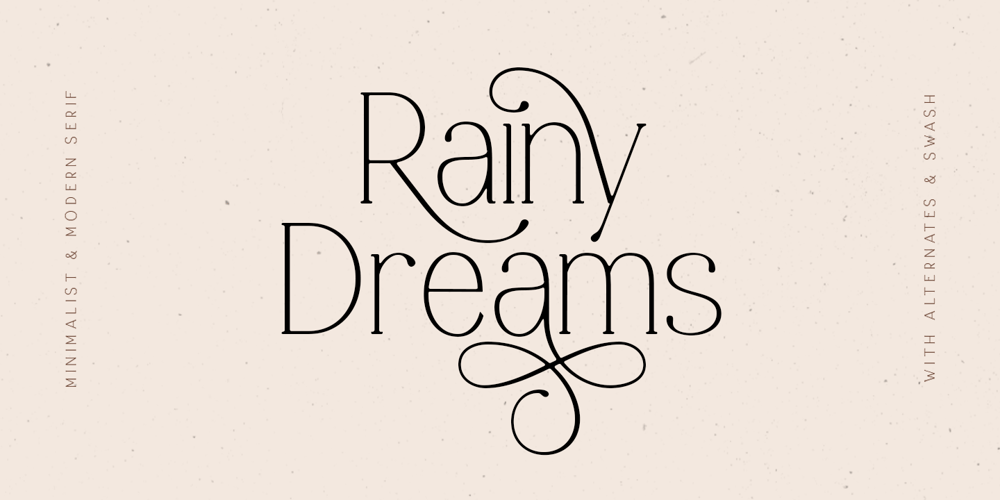
Rainy Dreams Font Family was designed by Sarid Ezra, Dzikrul Aulia and published by Bale Type. Rainy Dreams contains 1 styles and family package options. Rainy Dreams is a minimalist and modern serif that comes with alternates and swash. You can use this font for any project especially that require simple and elegant looks such as branding, logo, wedding invitations and more. This font also support multilingual.